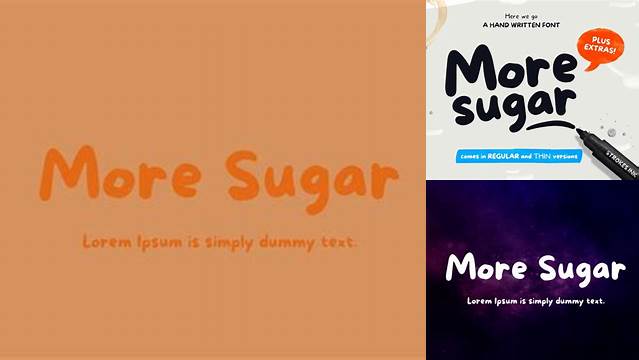
Hey guys! Are you looking for a fun, fresh, and free font to spice up your designs? Look no further because we're diving headfirst into the More Sugar Font Family, and yes, you guessed it – it's available for a free download! This delightful font is perfect for all sorts of creative projects, from crafting eye-catching social media posts to designing stunning websites. In this article, we'll explore everything about the More Sugar Font Family: what makes it special, where to download it, and how to use it effectively in your designs. So, buckle up, and let's get this font party started!
What Makes the More Sugar Font Family So Sweet?
Let's talk about the star of the show: the More Sugar Font Family. This font isn't just your average typeface; it's got personality! It's a modern, playful, and incredibly versatile font that can add a touch of whimsy and charm to any project. It's like the design equivalent of a warm hug on a cold day. The font family typically includes various styles, such as regular, bold, italic, and sometimes even condensed versions, giving you plenty of options to play with. This variety allows you to create depth and visual interest in your designs. Whether you're working on a logo, a poster, or a website, the More Sugar Font will help you grab your audience's attention and leave a lasting impression.
One of the best things about the More Sugar Font is its readability. Despite its stylish appearance, it remains clear and easy to read, making it perfect for both headlines and body text. This is a crucial aspect of font selection, as your design needs to be not only visually appealing but also functional. Furthermore, the font’s design often incorporates unique features, such as slightly rounded edges or playful letterforms, that set it apart from the more common fonts you see everywhere. These subtle details make it stand out, giving your designs a unique edge. When used correctly, this font can completely transform your project, turning it from bland to brand-tastic! I suggest experimenting with different weights and styles to find the perfect fit for your specific design needs. The goal is to create harmony and balance while still maintaining visual interest. The versatility of the More Sugar Font also means you can use it across multiple platforms and applications. From graphic design software like Adobe Photoshop and Illustrator to web design tools like WordPress, this font is compatible with a wide range of creative tools. This means you can seamlessly integrate it into your workflow, regardless of your preferred design method. I suggest you explore all the features to harness its full potential.
If you are on the hunt for a font that brings some joy and personality to your projects, the More Sugar Font Family is an excellent choice. Its playful design, combined with its readability and versatility, makes it a favorite among designers. So, why not give it a try and see how it can transform your next project?
Tips and Tricks for Using the More Sugar Font Effectively
Okay, you've downloaded the More Sugar Font Family. Now what? Let's explore some tips and tricks to use this awesome font effectively in your designs. First off, know your context. Think about the message you want to convey and the audience you're trying to reach. This font works exceptionally well for designs that require a friendly, playful, and approachable feel. It might be perfect for children's books, event posters, or websites targeting a younger demographic. I suggest you consider the visual hierarchy. Use the More Sugar Font to create a clear structure in your design. Use different font weights (regular, bold, etc.) to emphasize important information. Make sure your headlines stand out, and use the lighter weights for body text to maintain readability. This strategic approach guides the viewer's eye and enhances the overall impact of your design. This font's personality shines through when paired with complementary design elements. Consider using bright, cheerful colors and playful graphics to create a cohesive and inviting design. The goal is to create a unified visual experience that reflects your brand or project's personality. Try to experiment with different font combinations. While More Sugar Font is a great font on its own, try pairing it with a more neutral or classic font for body text to create a balanced contrast. This can improve readability and create visual interest. A great combination is mixing playful fonts with serious ones.
Another tip, optimize for readability. Ensure that your text is easy to read. Avoid using the font in small sizes, as it can become difficult to decipher. Also, pay attention to spacing. Adjust the letter spacing and line height to enhance readability. This is especially important for longer blocks of text. Don't be afraid to experiment and get creative. This font gives you the freedom to think outside the box. Try using the font for social media graphics, website banners, or even merchandise designs. The possibilities are endless! Also, remember to test your designs. Before publishing your design, always preview it on different devices and platforms to ensure it looks good in all contexts. Make sure the font renders correctly and the design is easy to read and navigate. It is also important to understand the licensing. Before using the More Sugar Font in your design, make sure you understand the font's license. Some fonts are free for personal use only, while others allow commercial use. Always respect the license terms to avoid any legal issues. Taking these tips to heart will help you to use the More Sugar Font Family effectively. Unleash your creativity, and have fun with it!
Common Uses for the More Sugar Font Family
So, where can you actually use the More Sugar Font Family? This font is incredibly versatile, making it a great choice for a wide variety of projects. Here are some of the most common and effective uses:
- Social Media Graphics: This font is perfect for creating eye-catching posts on platforms like Instagram, Facebook, and Pinterest. Use it to make headlines, quotes, or call-to-actions that grab your audience's attention. Think bright backgrounds, playful graphics, and engaging copy to create visually appealing content.
As you embark on your design journey, remember the key takeaways: The More Sugar Font is versatile, readable, and perfect for projects that need a touch of fun and personality. Always download fonts from reputable sources and respect the licensing terms. Experiment with different styles and weights to unleash the full potential of this amazing font. Have fun, and let your creativity flow. With the More Sugar Font Family in your design arsenal, you're ready to create stunning visuals that will sweeten your designs and captivate your audience. So, go forth and design something amazing! Happy designing!